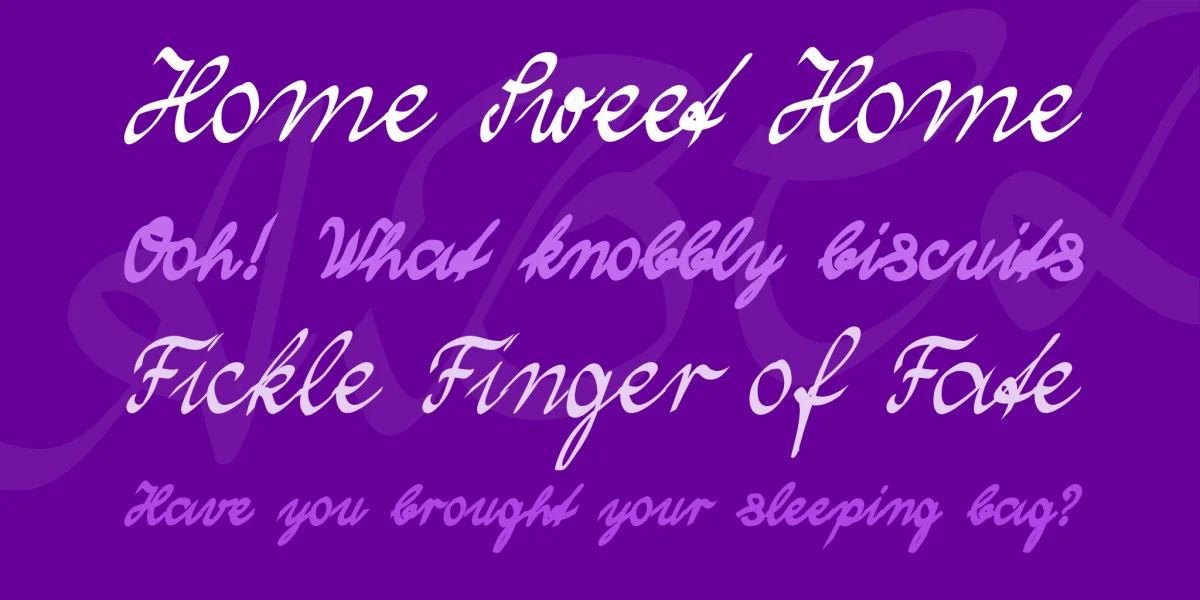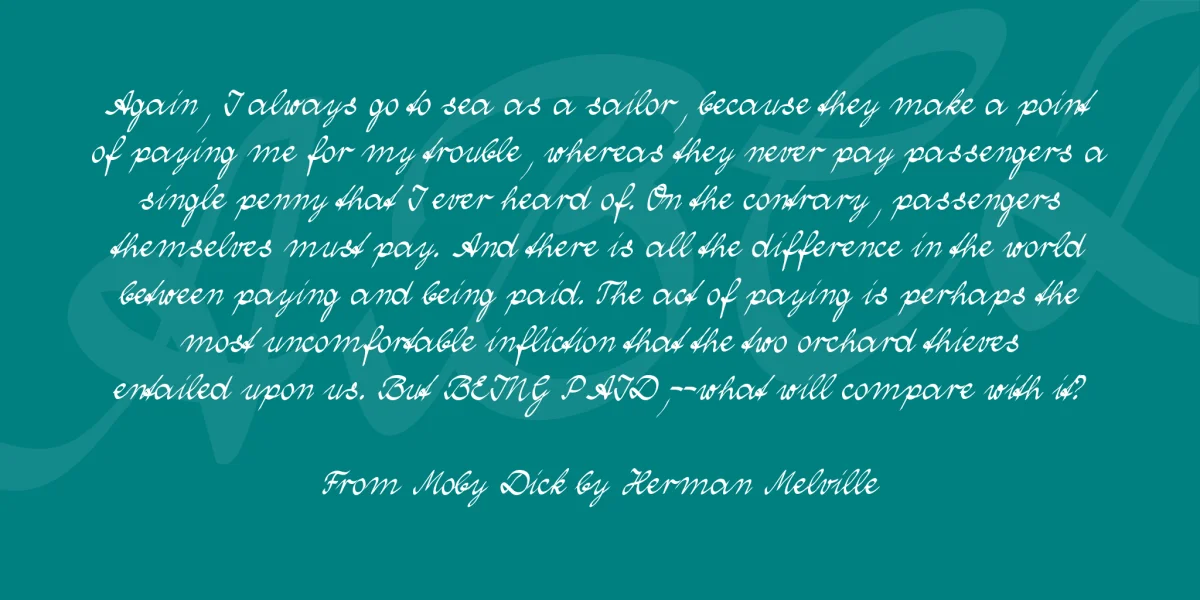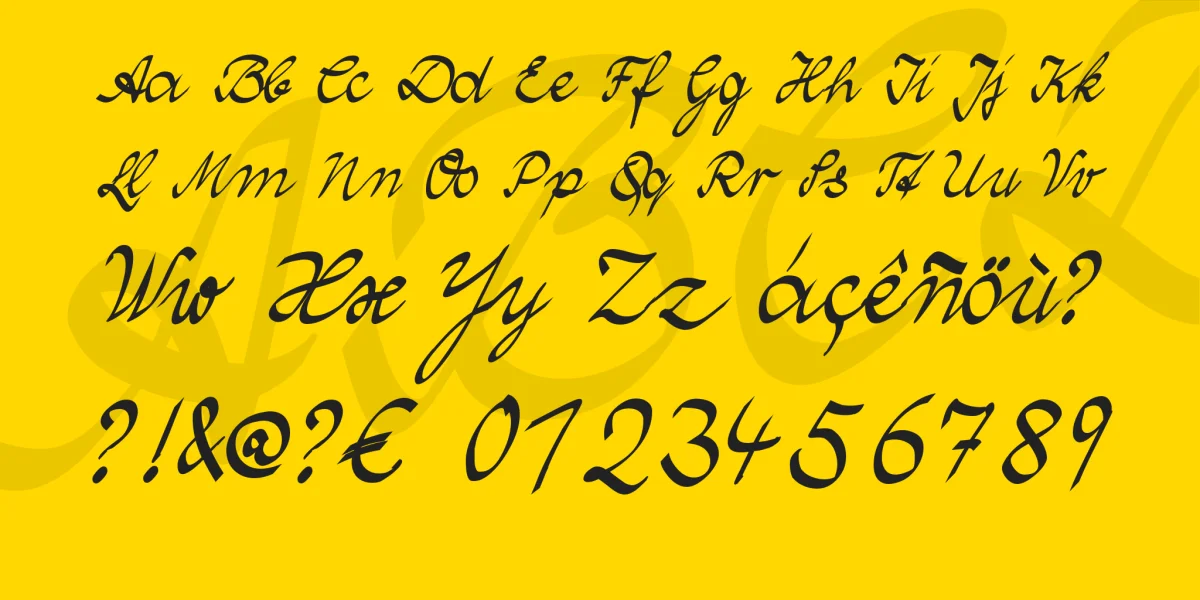
Instead of serching for eastereggs, I createt this font within 3 days. I wrote the glyphs on a littele graphic-tablet into CorelDRAW, than I gave them a caligraphic outline. than I let Corel convert the outline to paths. I designed this Font, because I didn't found any cyrillic handwriting font, so I create my own...